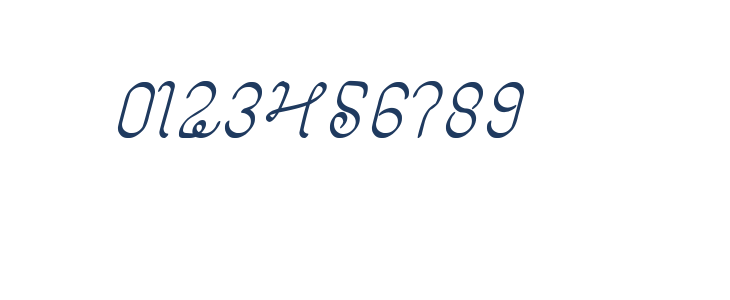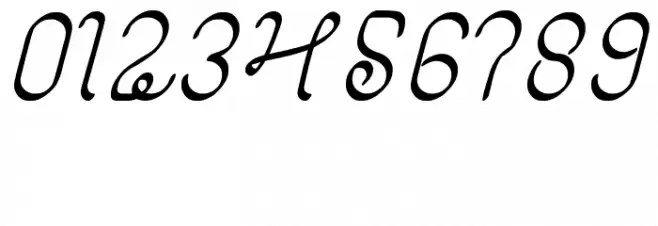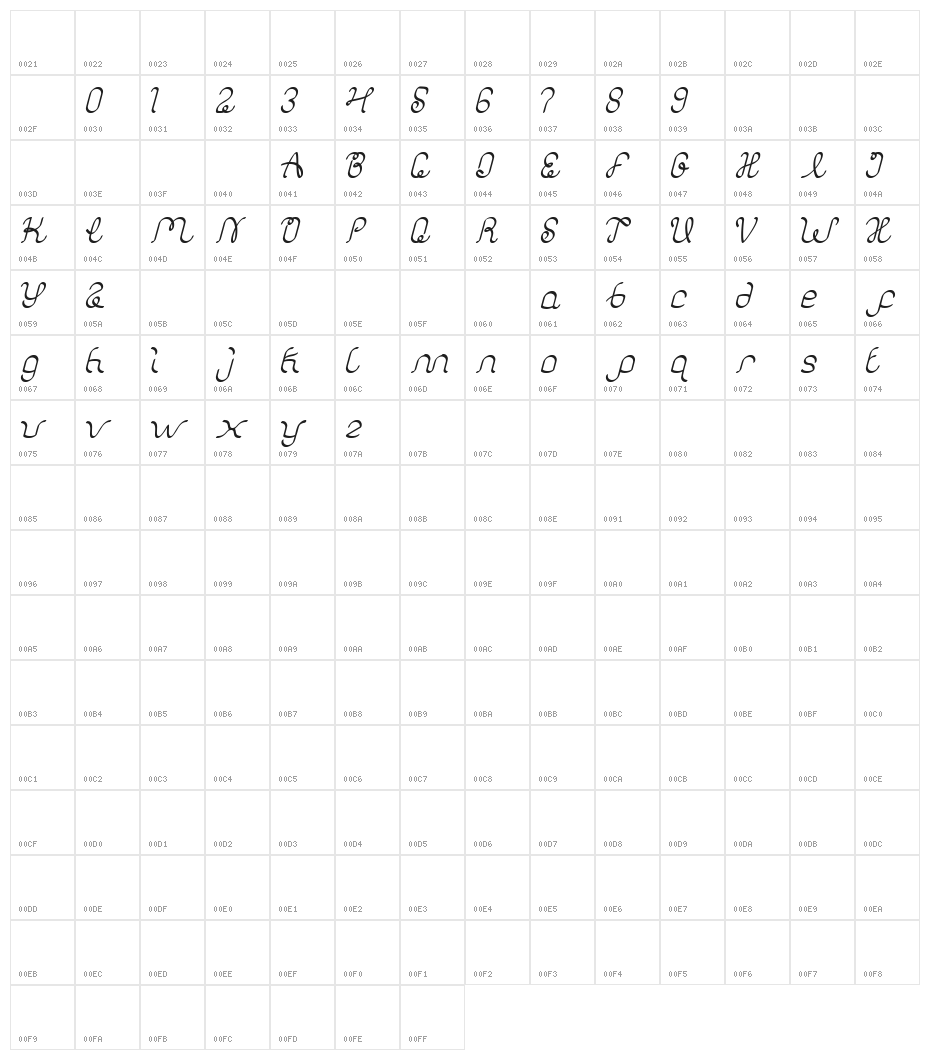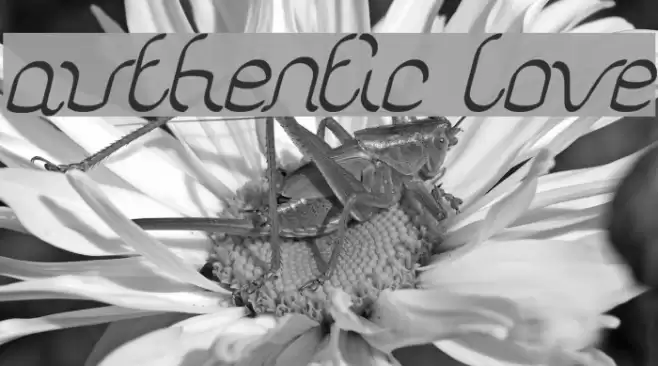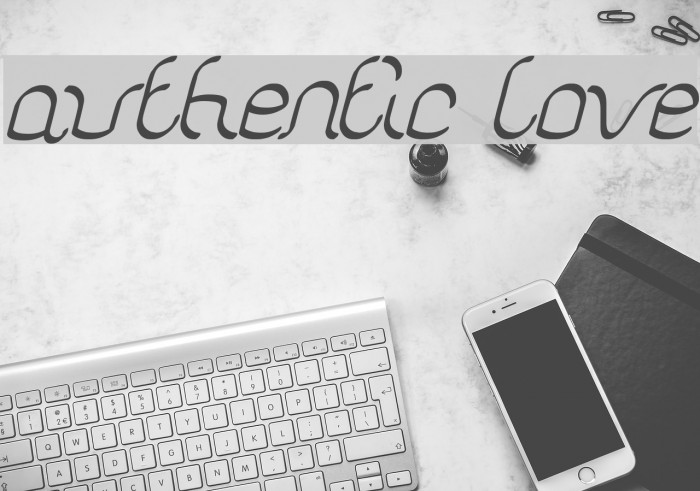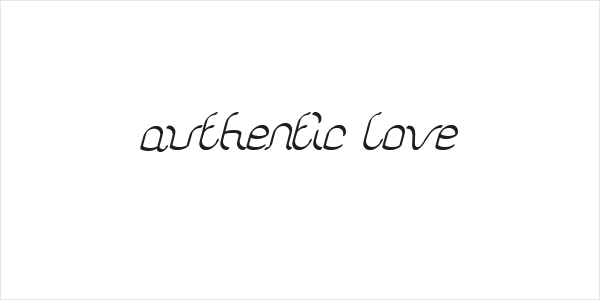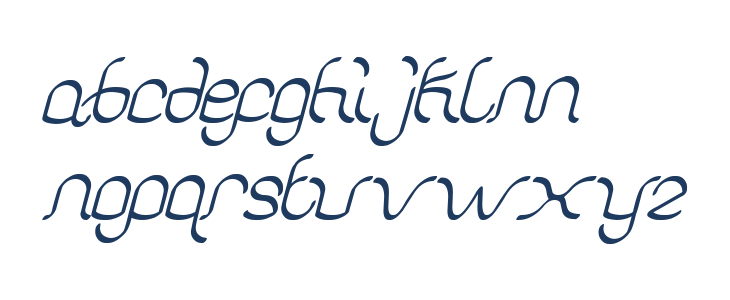
authentic love Font
authentic love Description
This font exhibits a playful and whimsical script style, characterized by its flowing, interconnected letters that mimic the fluidity of handwriting. The uppercase letters maintain a consistent height, while the lowercase letters vary slightly, adding to the organic feel. The strokes are smooth and rounded, with a moderate thickness that ensures readability without sacrificing elegance. The numerals and special characters are designed to match the overall style, maintaining the same fluidity and charm. This font is ideal for projects that require a personal touch, such as invitations, greeting cards, or branding materials that aim to convey warmth and friendliness.